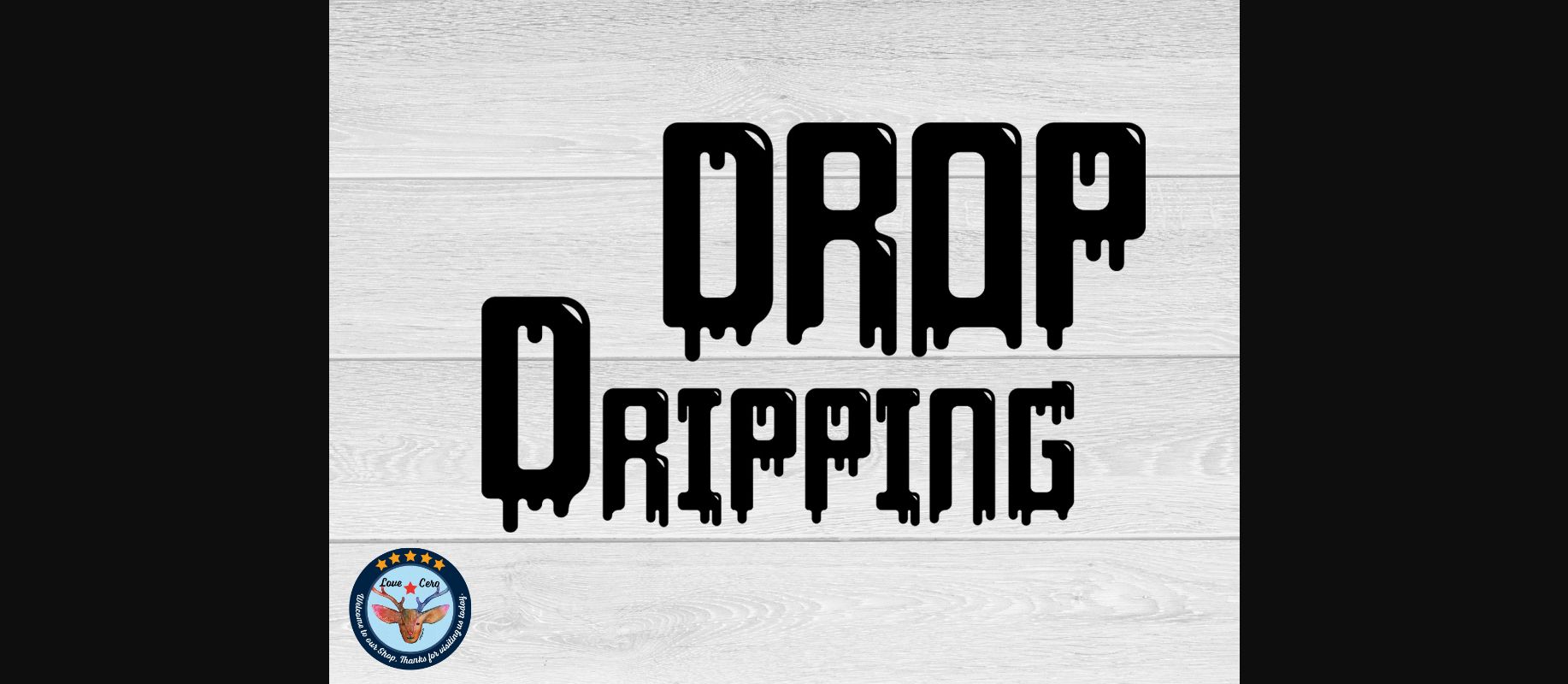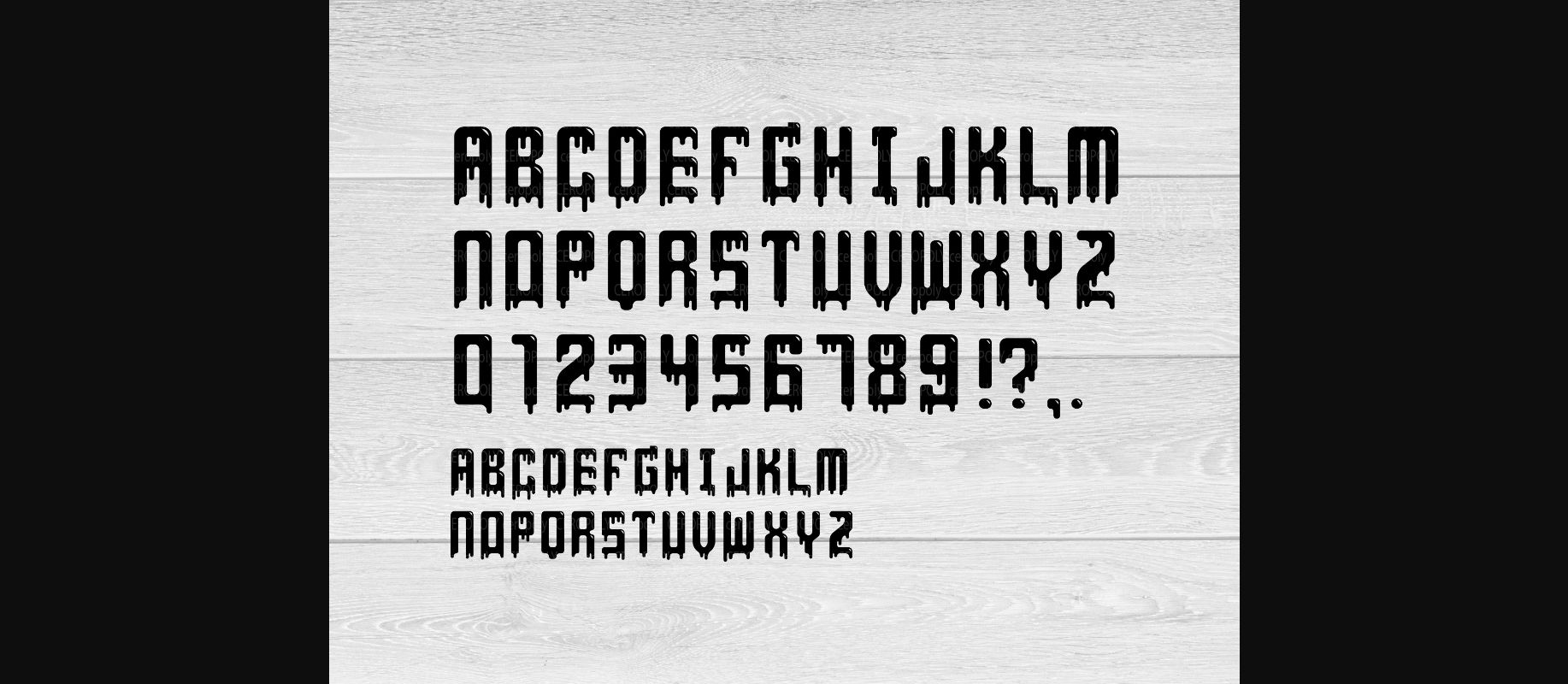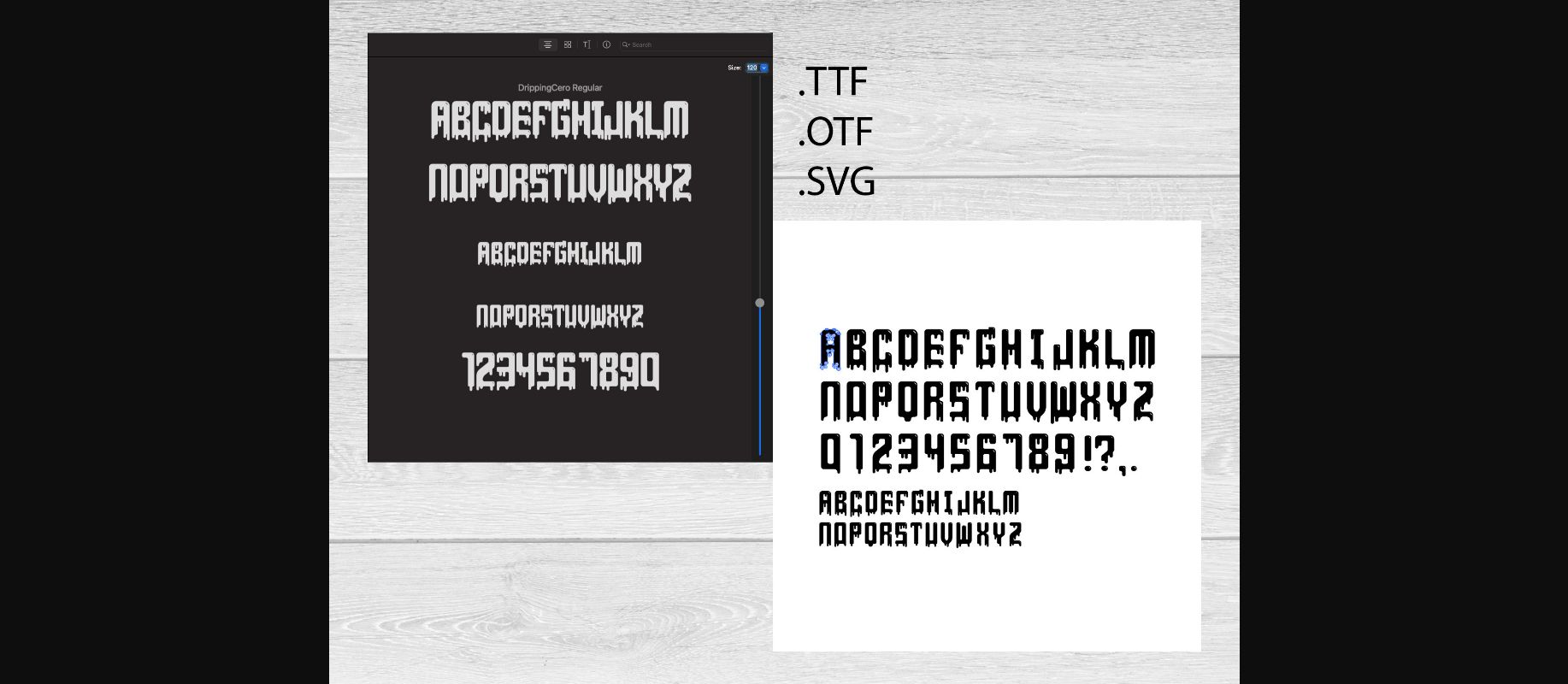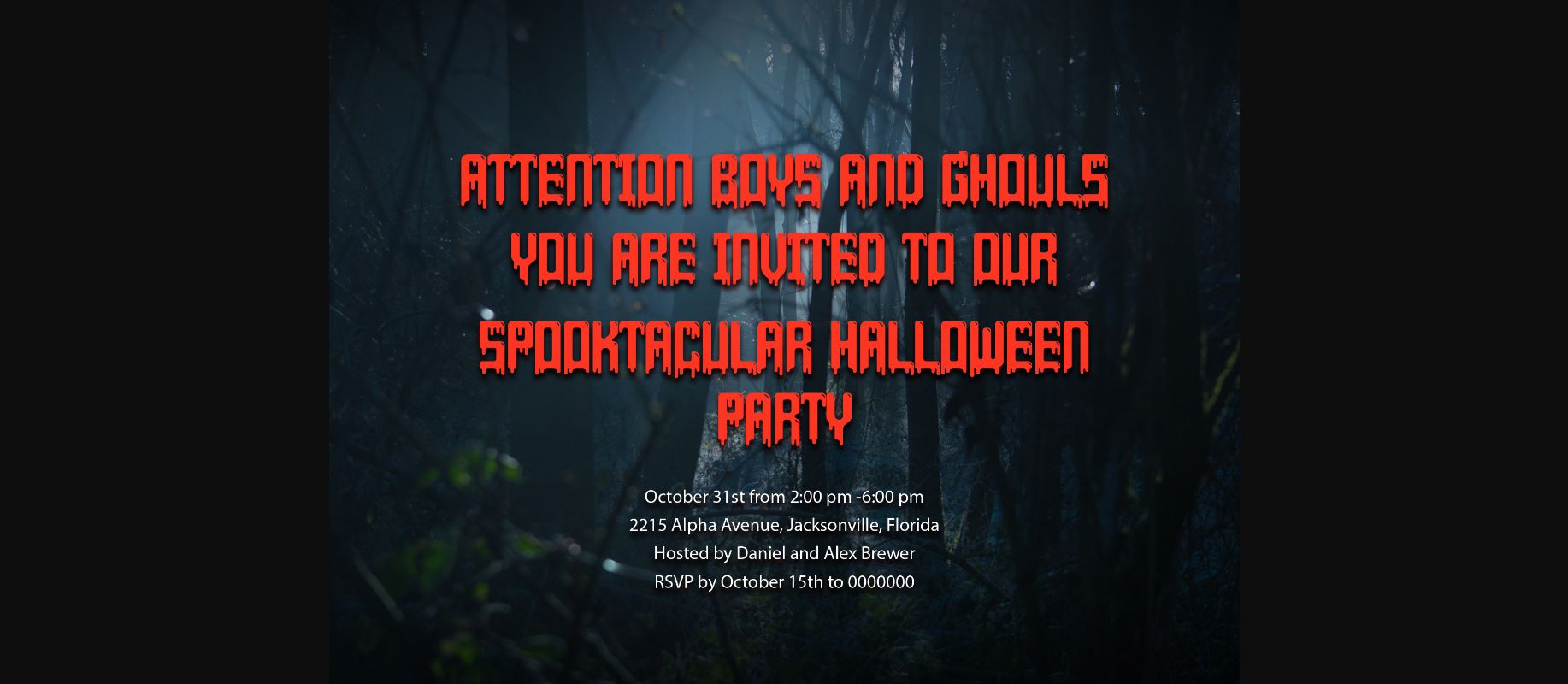
About Drop Dripping Font
Drop Dripping is an incredibly cool and original decorative font. This original look will appeal to a wide range of crafty ideas, from letterheads and titles, to stationery.